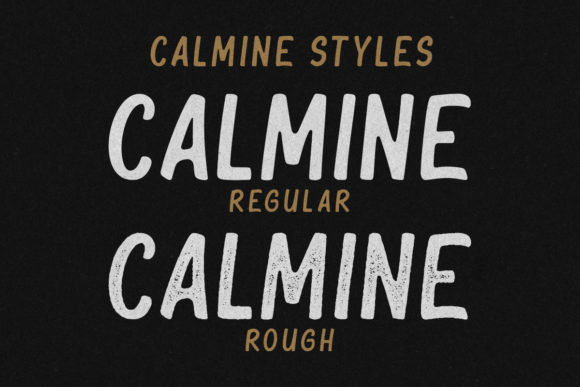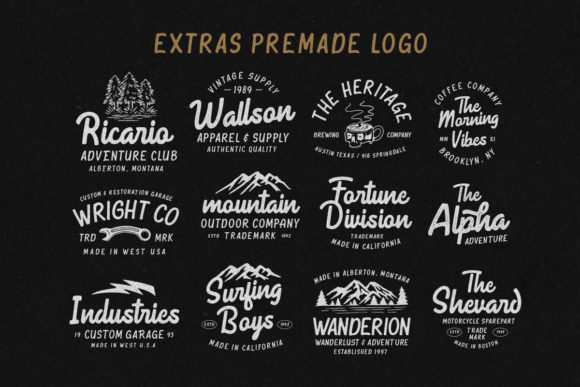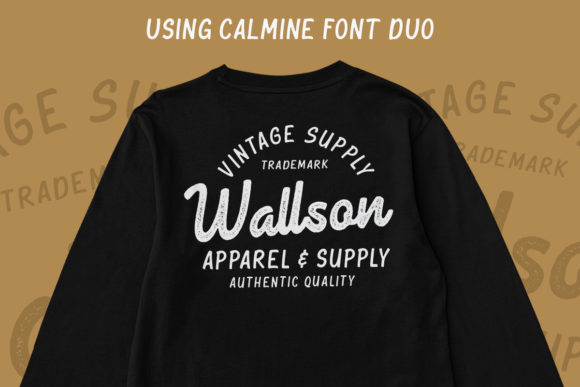
Introduction to Calmine Duo Font
Calmine Duo is a gorgeous, vintage styled duo font (script and sans serif).
It is suitable for any projects such as: logos, branding projects, label, photography, watermark, special events, and all your other lovely projects that need a beautiful script taste This font is PUA encoded which means you can access all of the glyphs and swashes with ease.
Calmine Duo Font offers exceptional quality and versatility, making it a valuable addition to your design toolkit. Whether you’re creating for personal projects or commercial use, Calmine Duo Font delivers professional results.